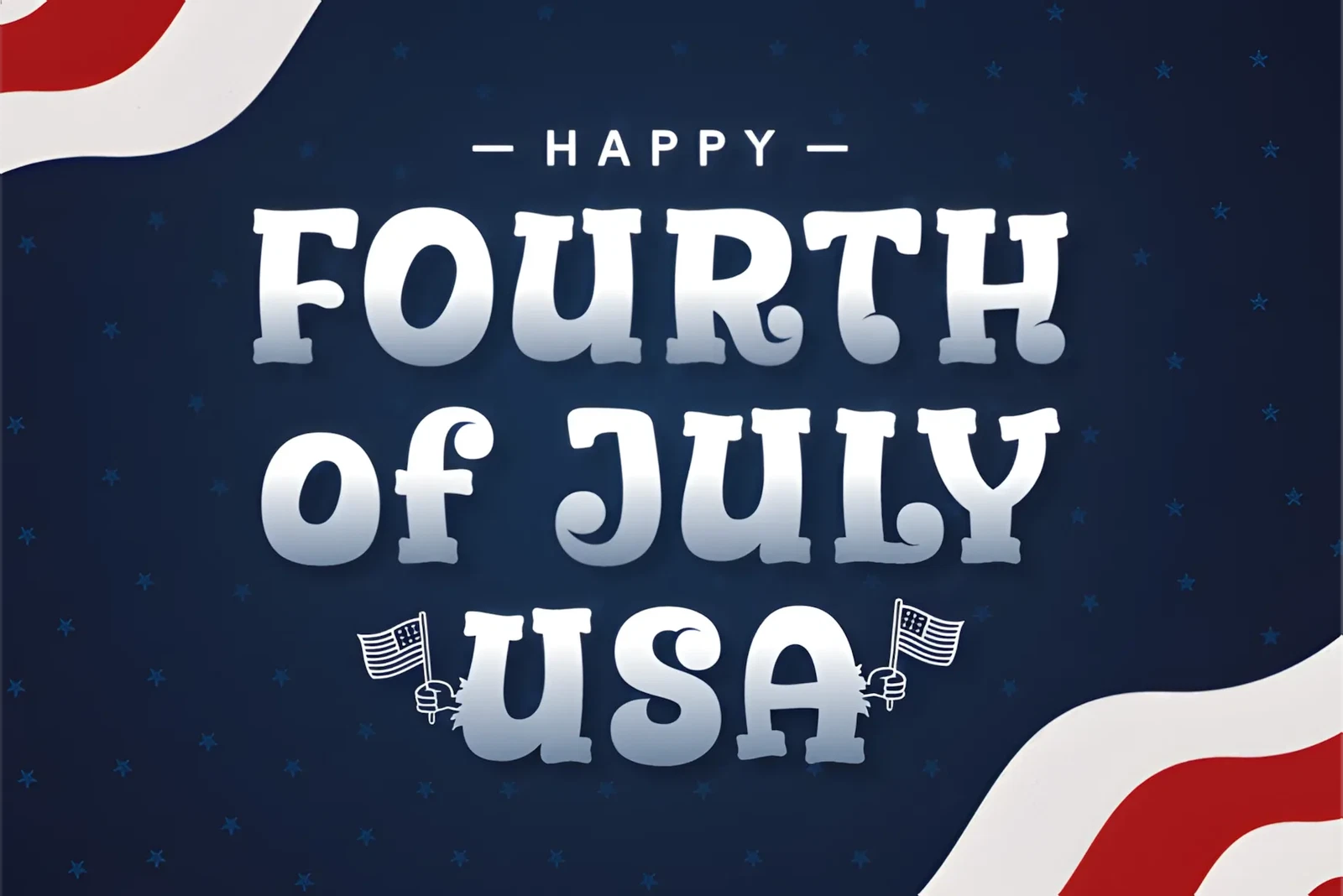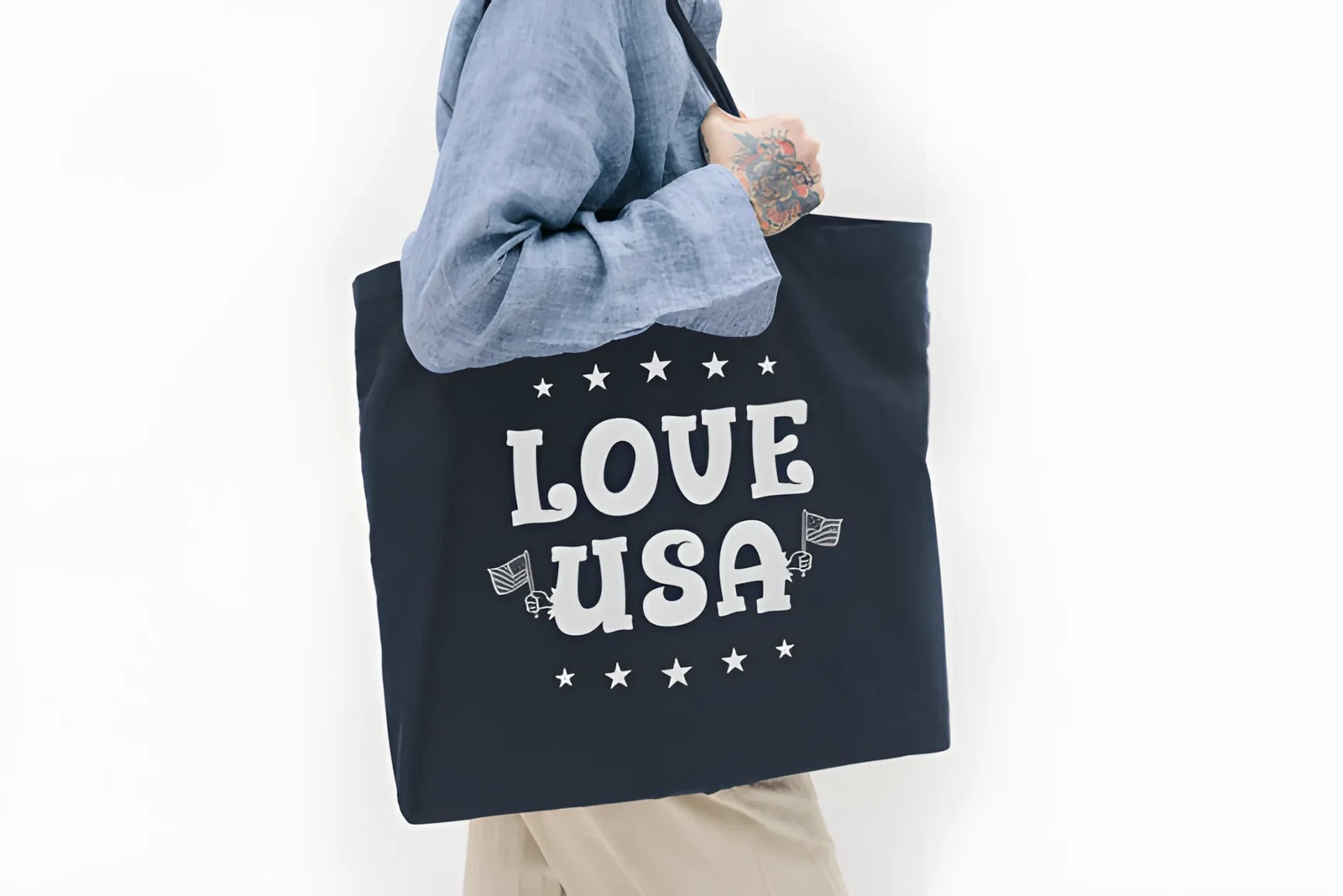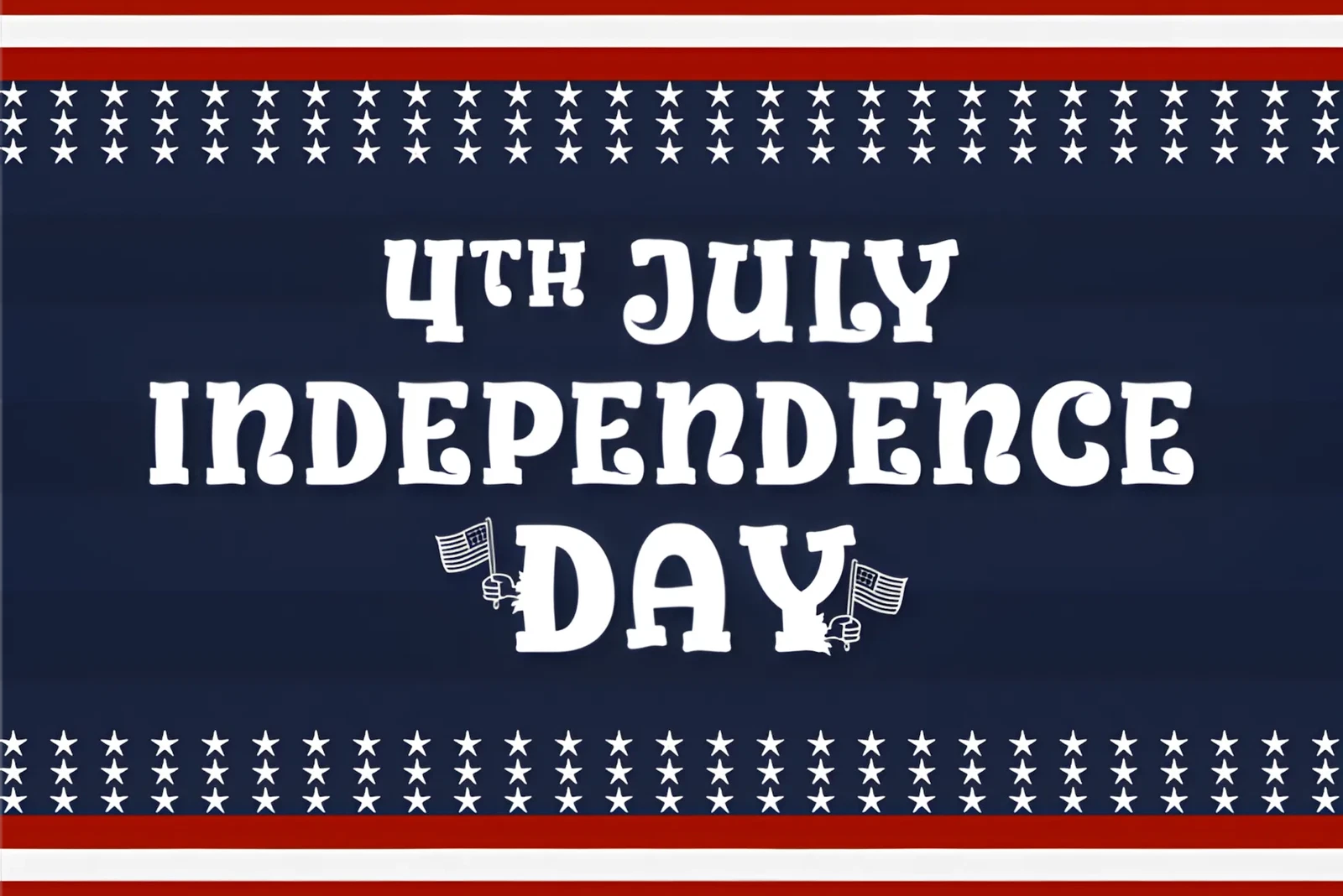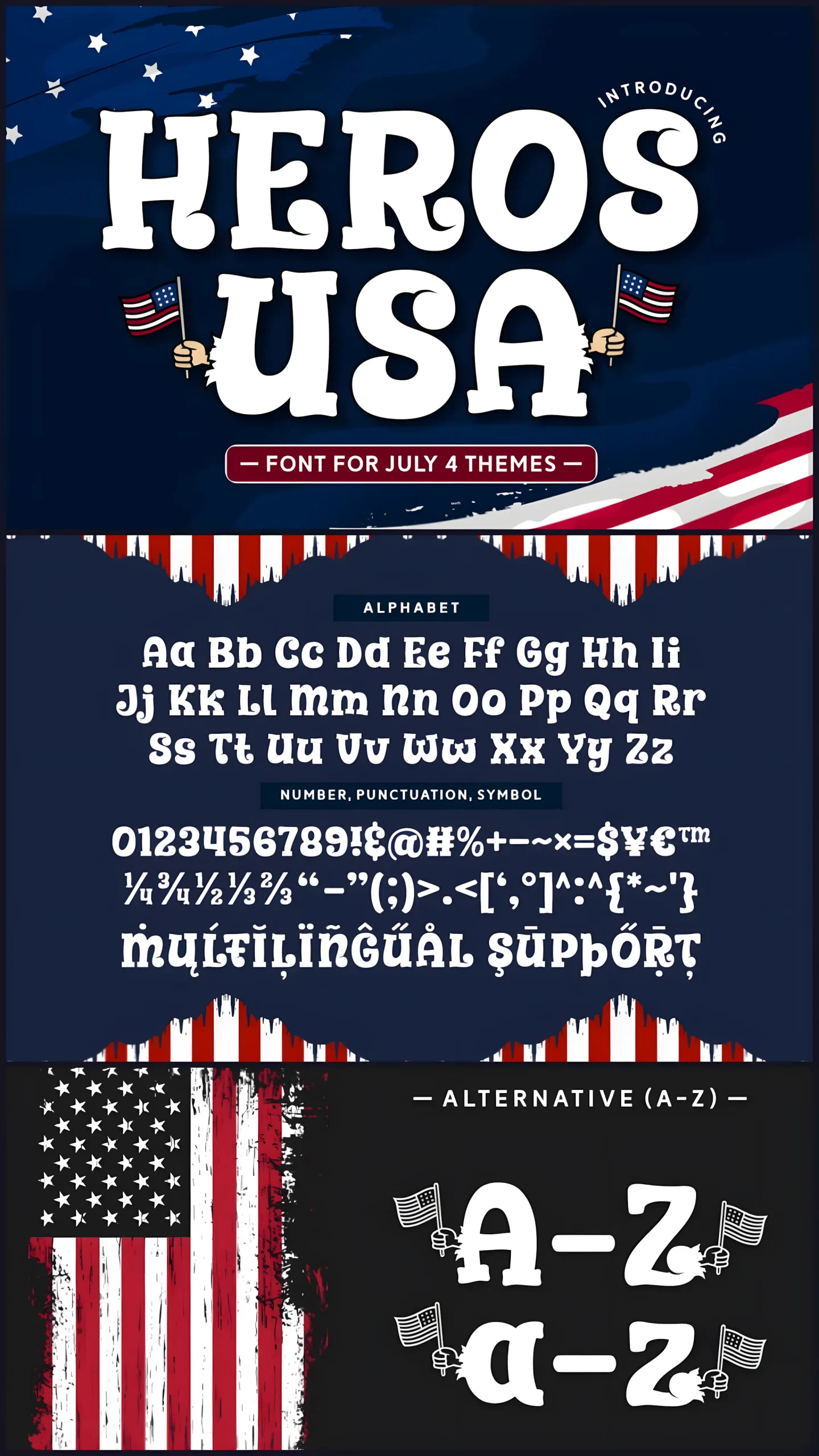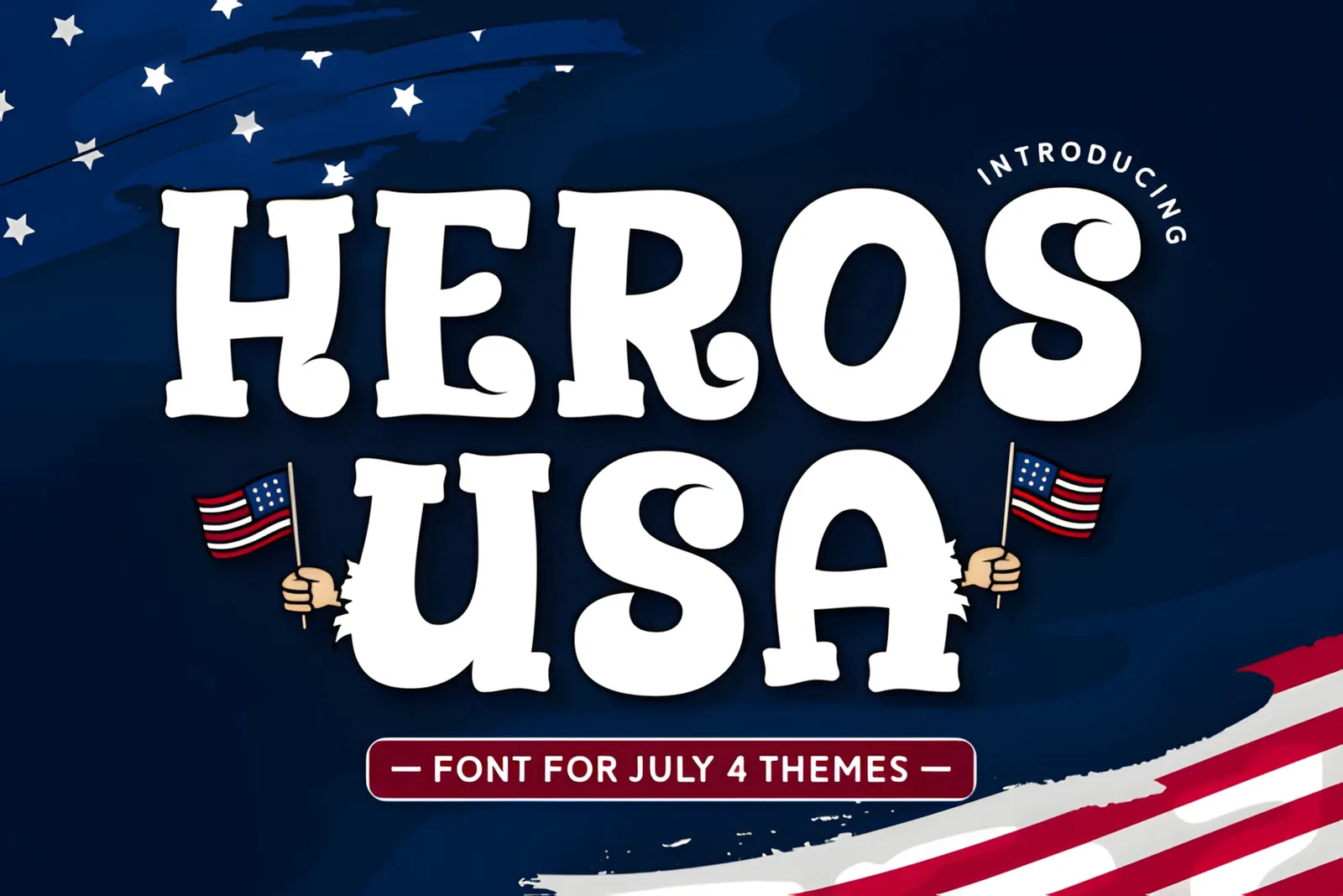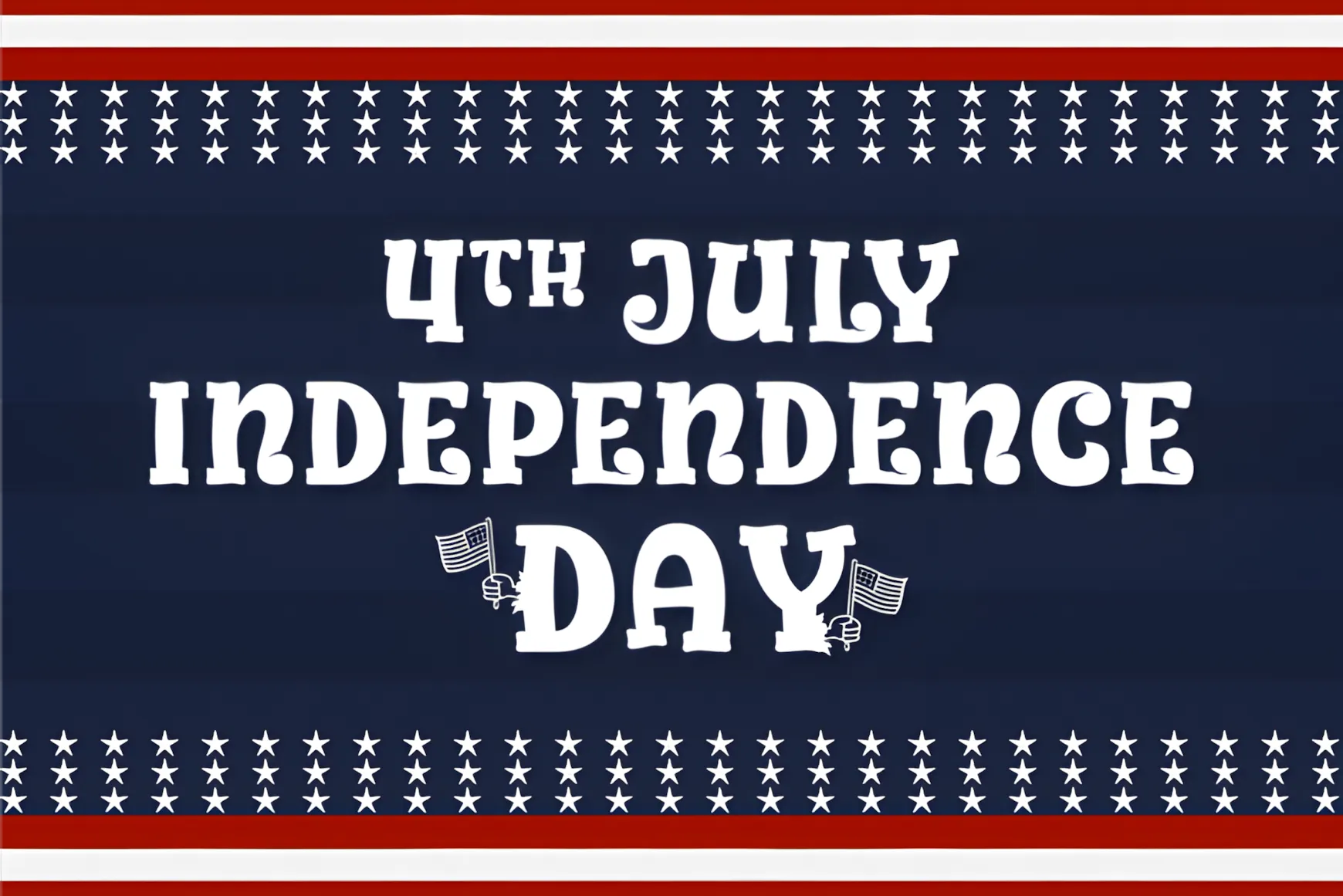
Fonts created around national themes often lean too heavily into decoration and lose practical value. Heros USA Font takes a more balanced approach. It is a decorative display typeface built to celebrate American culture, freedom, and national identity while remaining readable and versatile in real design work.
This font was designed for projects that highlight pride, unity, and tradition. It works especially well in designs connected to national holidays, public events, and themed branding where strong visual identity matters.
Overall Style and Visual Impression
Heros USA Font delivers a bold, confident look from the first glance. The letterforms feel solid and expressive, with shapes that carry a classic American display style. There is a sense of strength and heritage in the design, which makes the font immediately suitable for patriotic themes.
Despite its decorative nature, the font avoids unnecessary complexity. The characters remain clear and well-structured, allowing text to stay readable even when used in large headlines or banners. This balance between character and clarity makes the font practical rather than purely ornamental.
The visual tone fits themes like freedom, unity, pride, and celebration, making it a natural choice for American-themed design projects.
Designed for National and Patriotic Themes
Heros USA Font was created for projects that celebrate American culture, history, and public events. It feels especially relevant in designs related to:
- Independence Day
- Fourth of July celebrations
- Veterans Day
- Memorial Day
- patriotic events and campaigns
The font helps communicate national pride without relying on visual clichés. Instead of overwhelming the design, it reinforces the message through strong typography.
Practical Design Applications
Posters, Banners, and Signage
One of the strongest use cases for Heros USA Font is large-format design. Posters, banners, and signage benefit from its bold shapes and high visibility. Headlines set in this font feel authoritative and confident, making them effective for public events and announcements.
The font holds its structure well at large sizes, which is essential for outdoor banners and printed signage.
Apparel and Merchandise
Heros USA Font works naturally in apparel design. T-shirts, hoodies, hats, and other merchandise often require typography that feels strong and symbolic. This font delivers that effect without looking overly decorative or fragile.
It fits well in designs meant for:
- patriotic apparel
- event merchandise
- commemorative items
- themed product collections
The clear letterforms translate well to print, embroidery, and digital previews.
Branding and Promotional Materials
In branding and promotional design, typography plays a key role in shaping identity. Heros USA Font can be used for:
- campaign headlines
- cover designs
- promotional graphics
- themed branding
Its display style adds personality while maintaining a sense of structure and professionalism.
Readability and Usability
Although Heros USA Font is a display typeface, readability remains one of its strengths. The spacing and proportions allow the text to remain legible across different sizes and formats.
It performs best in:
- titles
- headlines
- short phrases
- featured text
For longer content, pairing it with a clean sans-serif or serif font helps maintain balance and readability.
It is also PUA encoded, which allows easy access to special characters and glyphs in supported software.
Emotional Tone and Message
The emotional tone of Heros USA Font is rooted in pride and unity. It communicates strength without aggression and tradition without feeling outdated. This makes it suitable not only for official holidays, but also for community events, educational materials, and themed creative projects.
The font supports messages that aim to inspire, commemorate, or celebrate rather than simply decorate.
Heros USA Font is a decorative typeface built around national identity and pride. It combines bold character with practical readability, making it suitable for a wide range of patriotic and American-themed projects.
For designers and creators who need a font that communicates strength, unity, and celebration, Heros USA Font offers a clear and reliable solution. Used thoughtfully, it enhances designs without overpowering them and helps deliver messages with confidence and purpose.